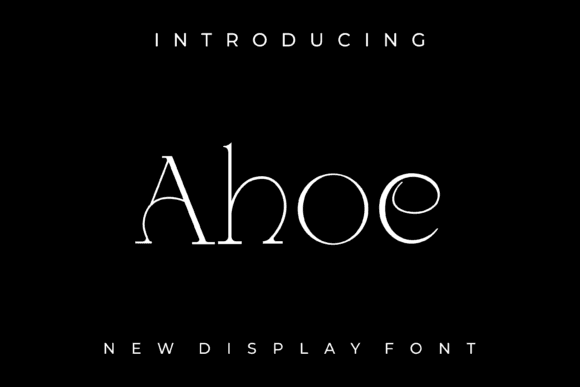
Ahoe Font for Headlines, Posters and Branding Projects
This is a statement-making display font designed for modern creative work. Ahoe features bold letterforms, sharp angles, and clean spacing, perfect for catching attention in headlines, posters, and brand assets. With its striking aesthetics, Ahoe elevates any visual project, ensuring that your message stands out in a crowded marketplace. In addition, the aurach font features and benefits include its versatility, allowing it to adapt seamlessly to both print and digital media. Whether used in large formats or smaller text, Ahoe maintains its readability while exuding a sense of modern sophistication.
As a font entity, Ahoe adds an edgy yet professional tone to any design, making it ideal for visual identity, advertising campaigns, and editorial layouts that demand clarity and flair.
Built to stand out in both large and compact spaces, it brings modernity and structure to every creative execution.
- Graphic designers in need of bold typography
- Branding professionals and logo developers
- Advertising creatives and content marketers
- Editorial designers and typographic artists
- Event promoters and product label creators
- Headline graphics and promotional posters
- Branded materials and identity kits
- Magazine covers and editorial spreads
- Event signage and digital campaigns
- Merchandise tags and label systems
- Sharp, modern, and expressive letterforms
- Perfect for high-impact branding and titles
- Balanced for both print and screen display
- Stylish tone without sacrificing legibility
Q: What type of font is Ahoe?
A: Ahoe is a bold and modern display font made for attention-grabbing headlines, posters, and branding visuals.
Q: Is this font suitable for logos?
A: Yes, its distinctive design makes it excellent for bold logo work and brand statements.
Q: Is this font optimized for large-format printing?
A: Absolutely. It maintains clean lines and visual sharpness even at billboard-scale sizes.